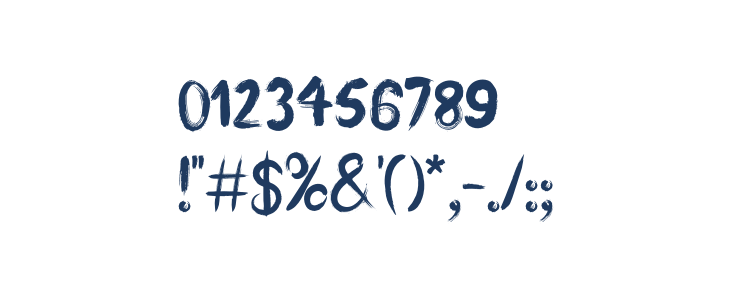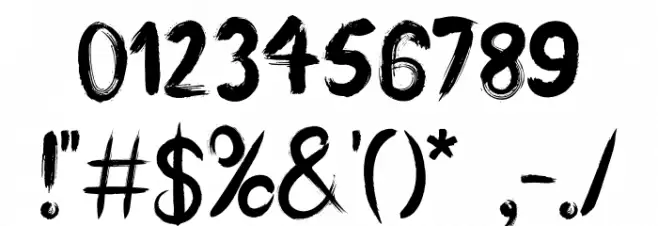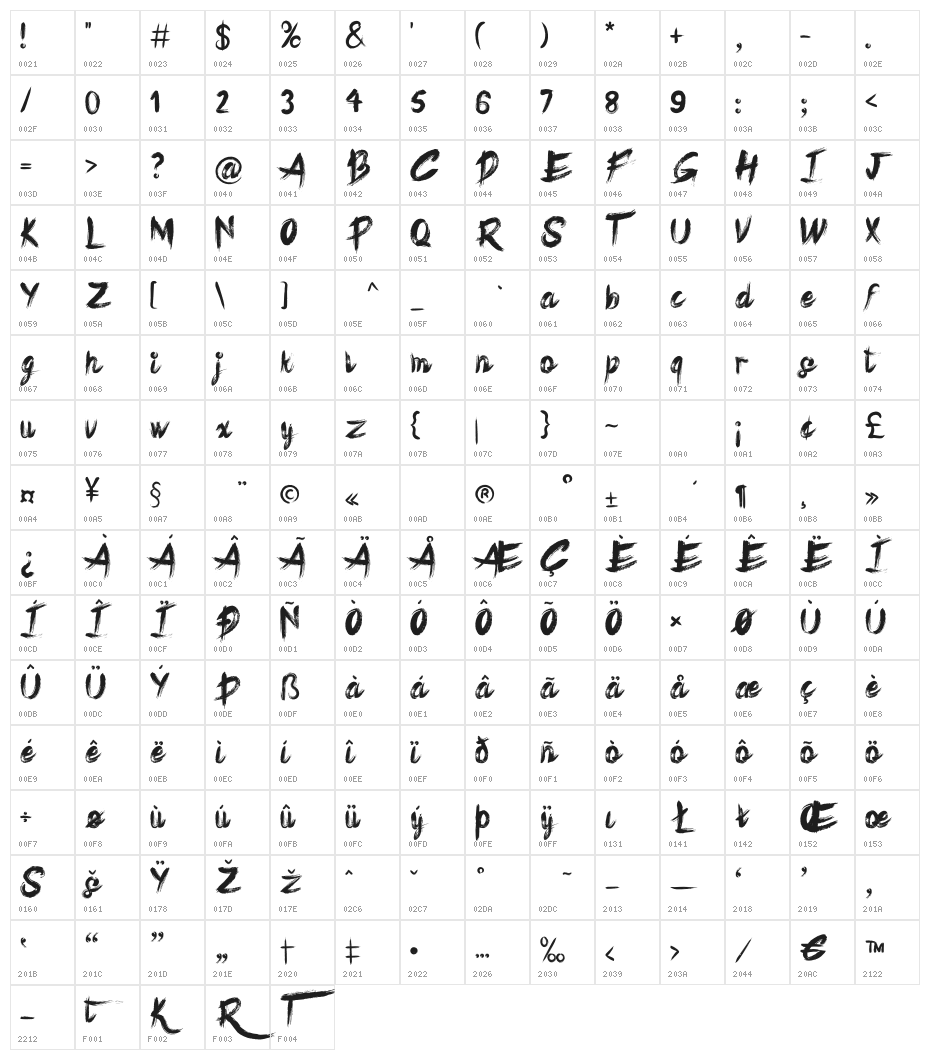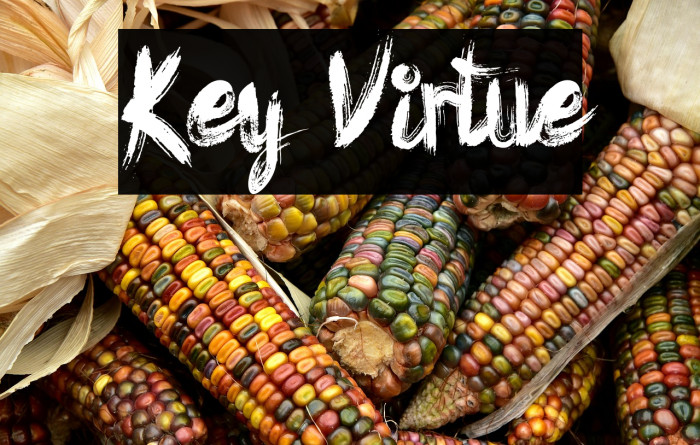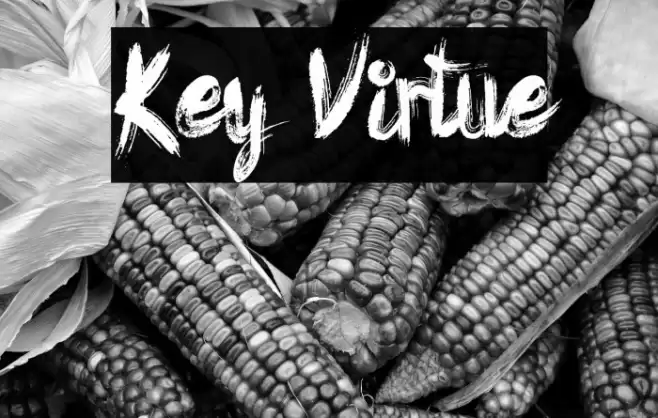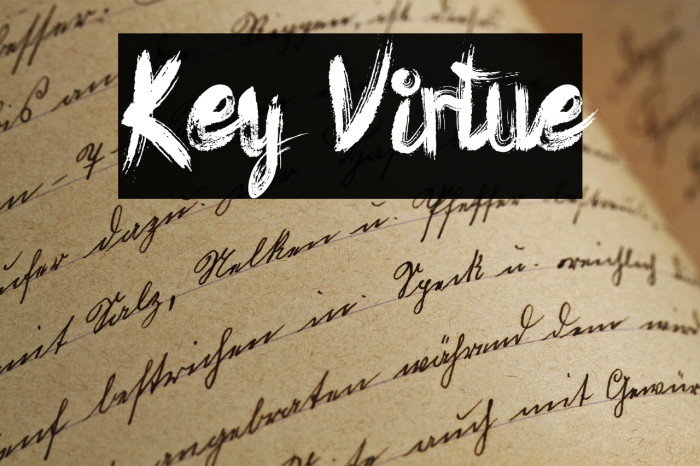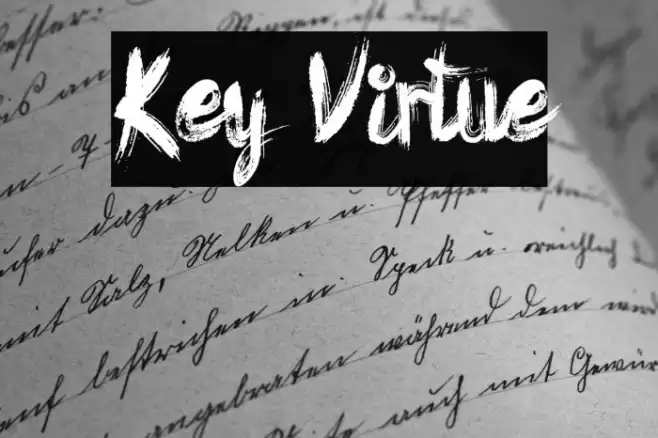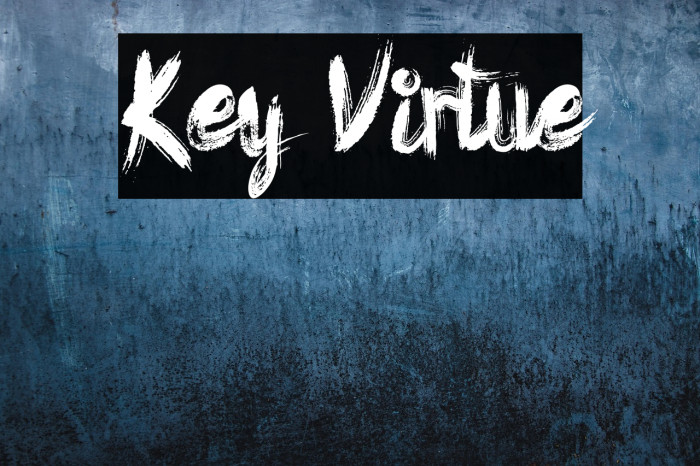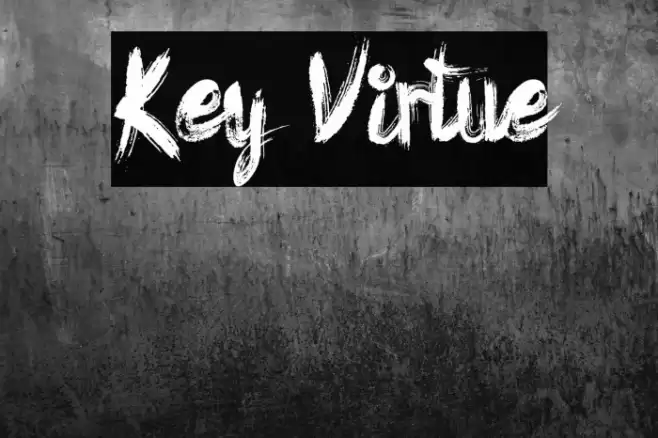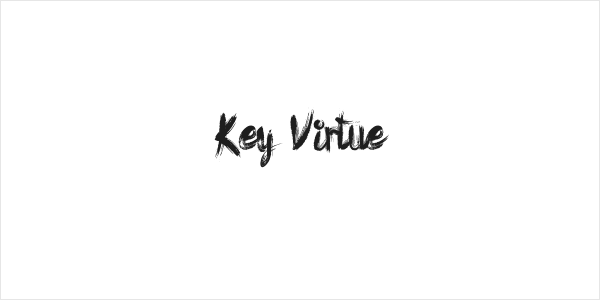
Key Virtue Font
Key Virtue Description
This font features a bold, brushstroke style that exudes energy and dynamism. The characters are crafted with a rough, textured appearance, reminiscent of hand-painted lettering. The uppercase letters are bold and assertive, while the lowercase letters maintain a fluid, cursive-like quality. Numbers and special characters follow the same expressive style, making the font suitable for creative and artistic projects. The overall design is both eye-catching and versatile, perfect for making a strong visual impact.
| Proposed Projects | Ideal for posters, album covers, branding, and any project requiring a bold artistic flair. |